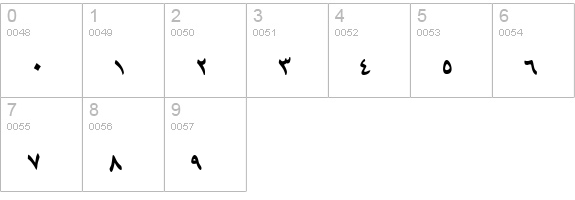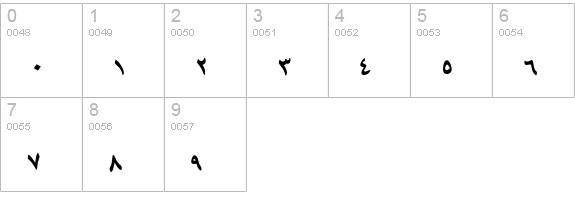
B Mashhad BoldItalic Font Details
B Mashhad BoldItalic is a striking and versatile font that commands attention with its bold weight and elegant italic style. This font exudes a sense of sophistication and modernity, making it perfect for a wide range of design projects. Whether you are creating posters, logos, headlines, or branding materials, B Mashhad BoldItalic will make a bold statement. What makes B Mashhad BoldItalic even more appealing is that it is available for free download at FontsMarket.com. This means that you can easily access this high-quality font without any cost, making it a valuable addition to your font library. With its unique combination of boldness and italic flair, B Mashhad BoldItalic is sure to elevate your designs and leave a lasting impression on your audience.